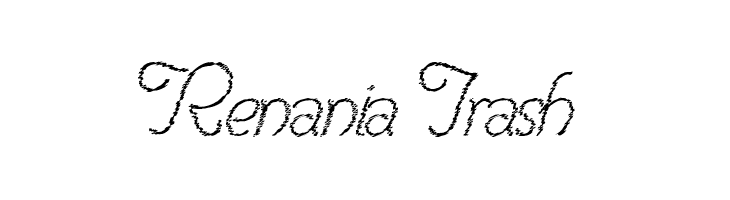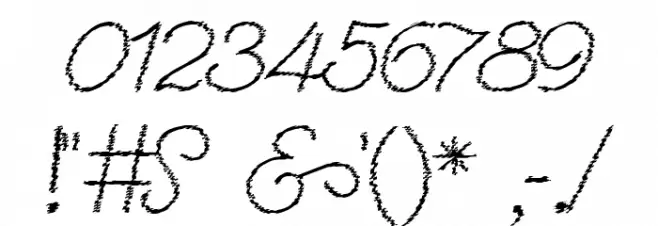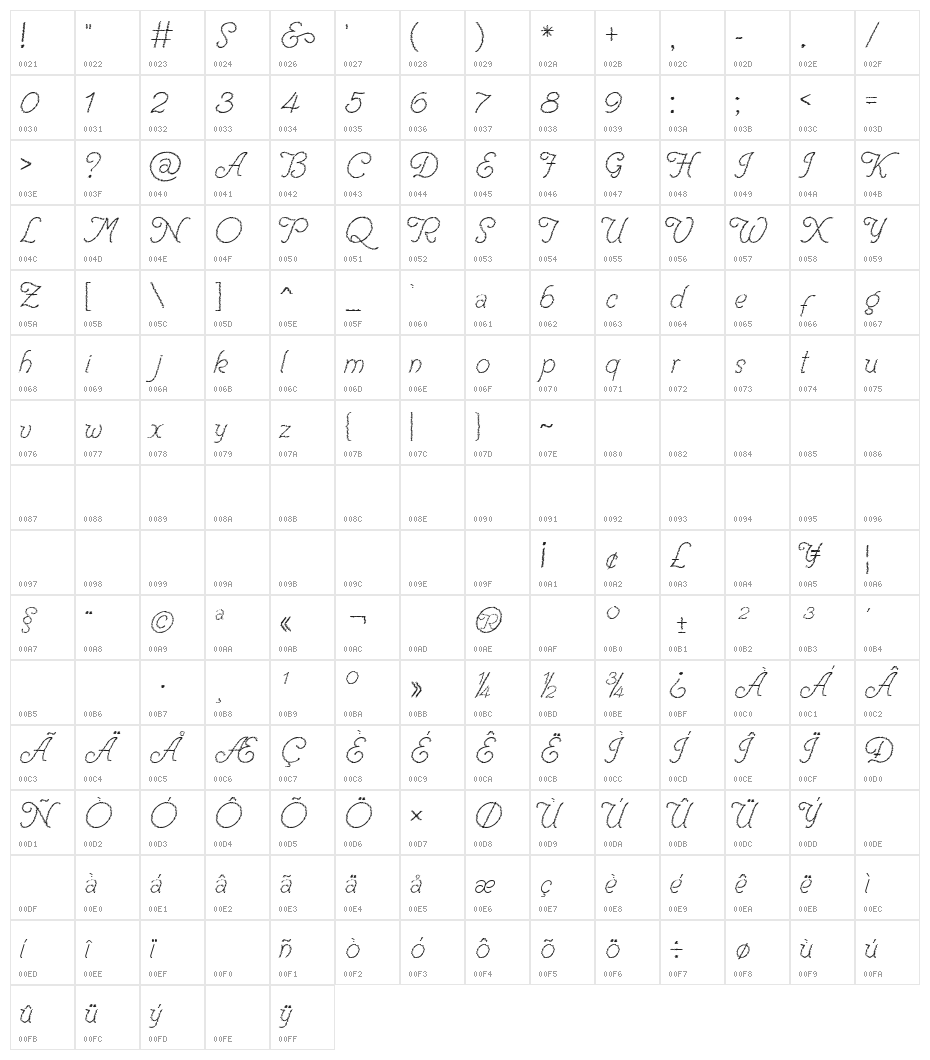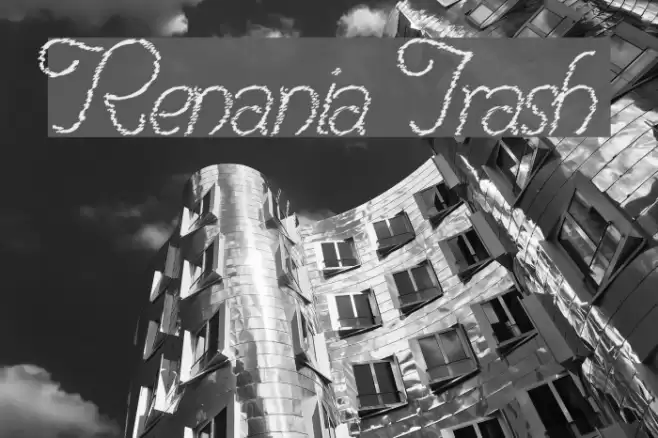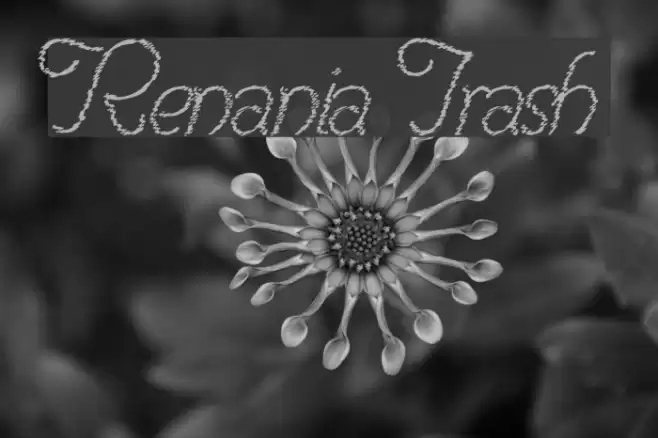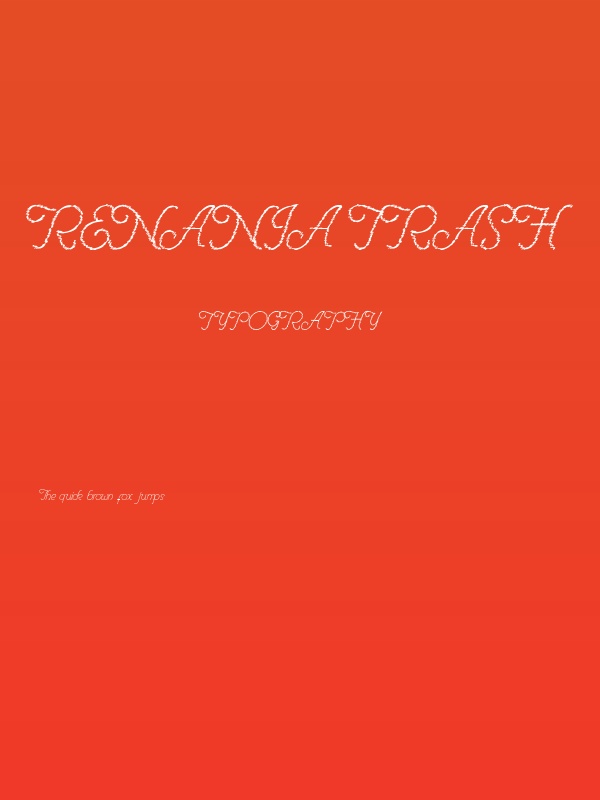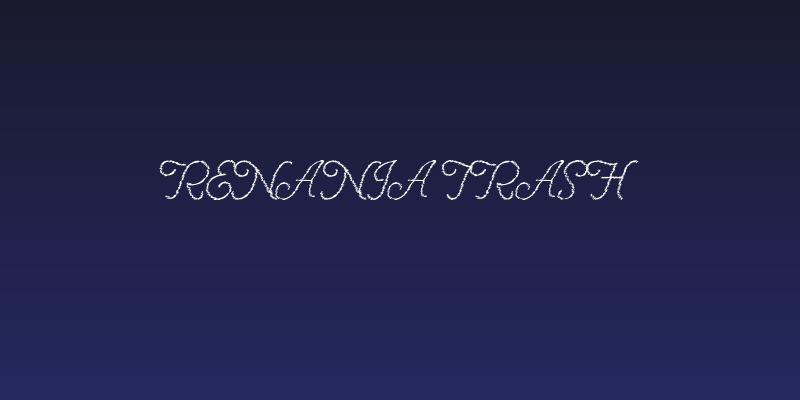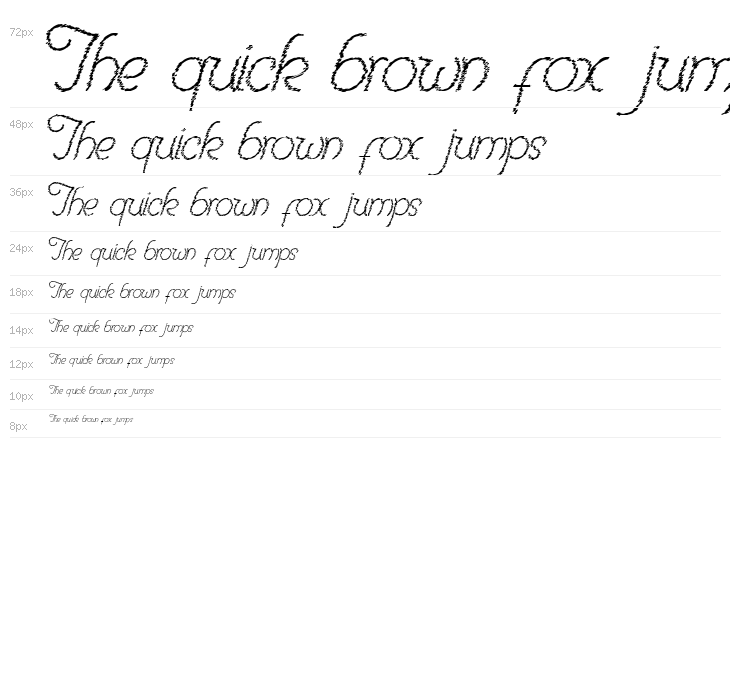
Renania Trash Font
Renania Trash Description
This font exhibits a unique, textured script style that mimics the appearance of handwriting with a rough, almost distressed texture. The characters are elegantly connected, providing a fluid and continuous flow across words. The uppercase letters are slightly larger and more ornate, while the lowercase letters maintain a consistent height, enhancing readability. Numbers and special characters follow the same stylistic approach, ensuring uniformity throughout. The overall design is both artistic and legible, making it suitable for creative projects that require a touch of personality and flair.
| Proposed Projects | Ideal for wedding invitations, greeting cards, artistic posters, and branding materials that seek a personal touch. |